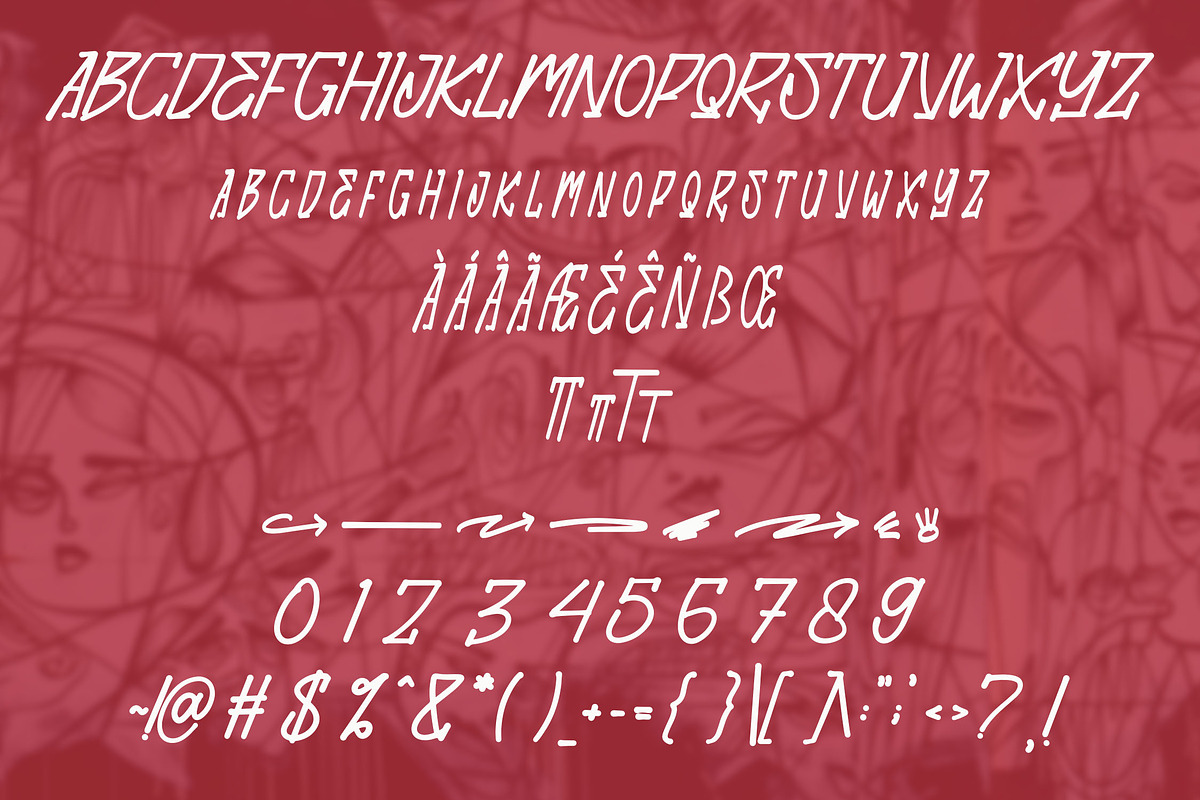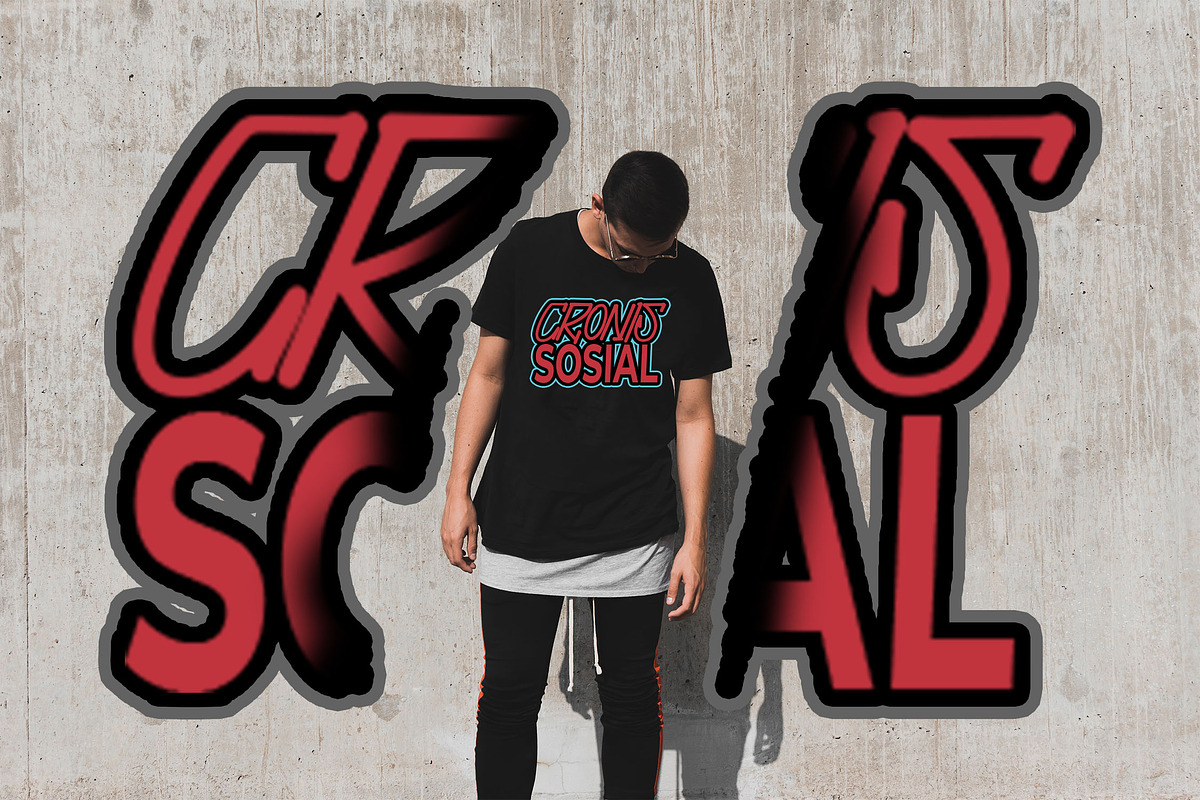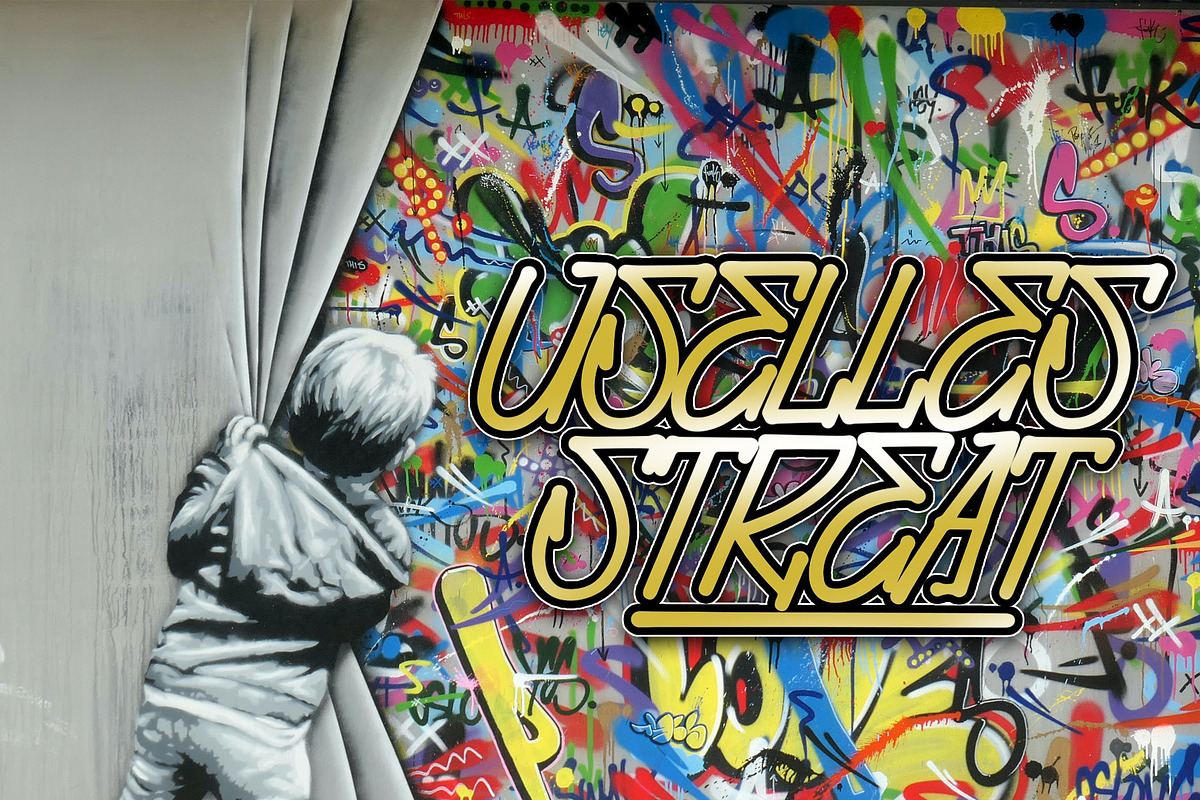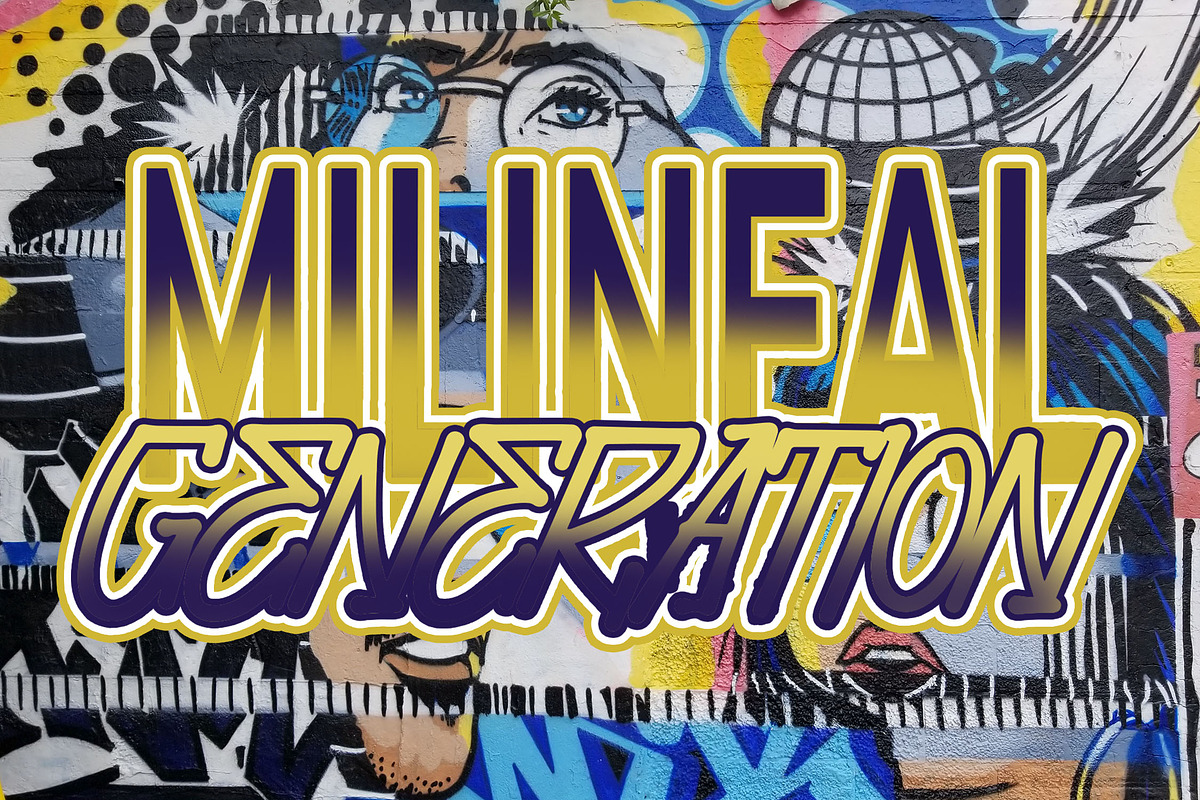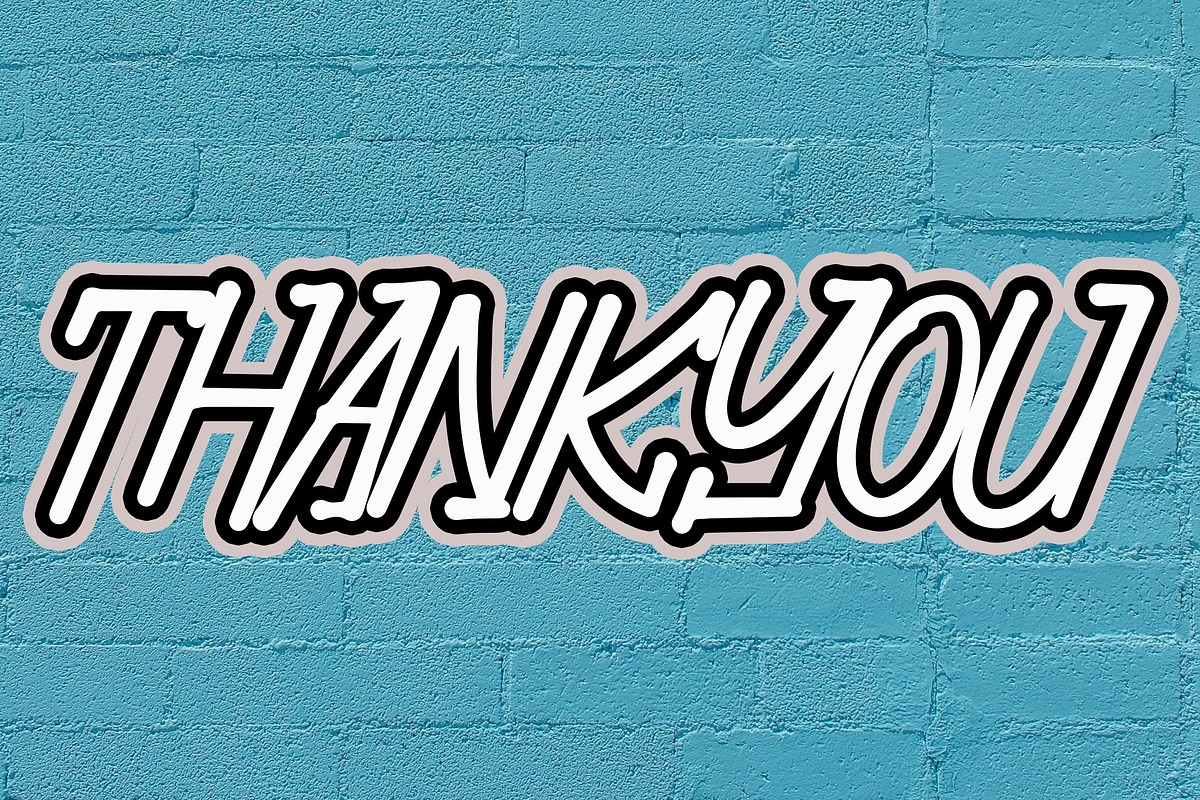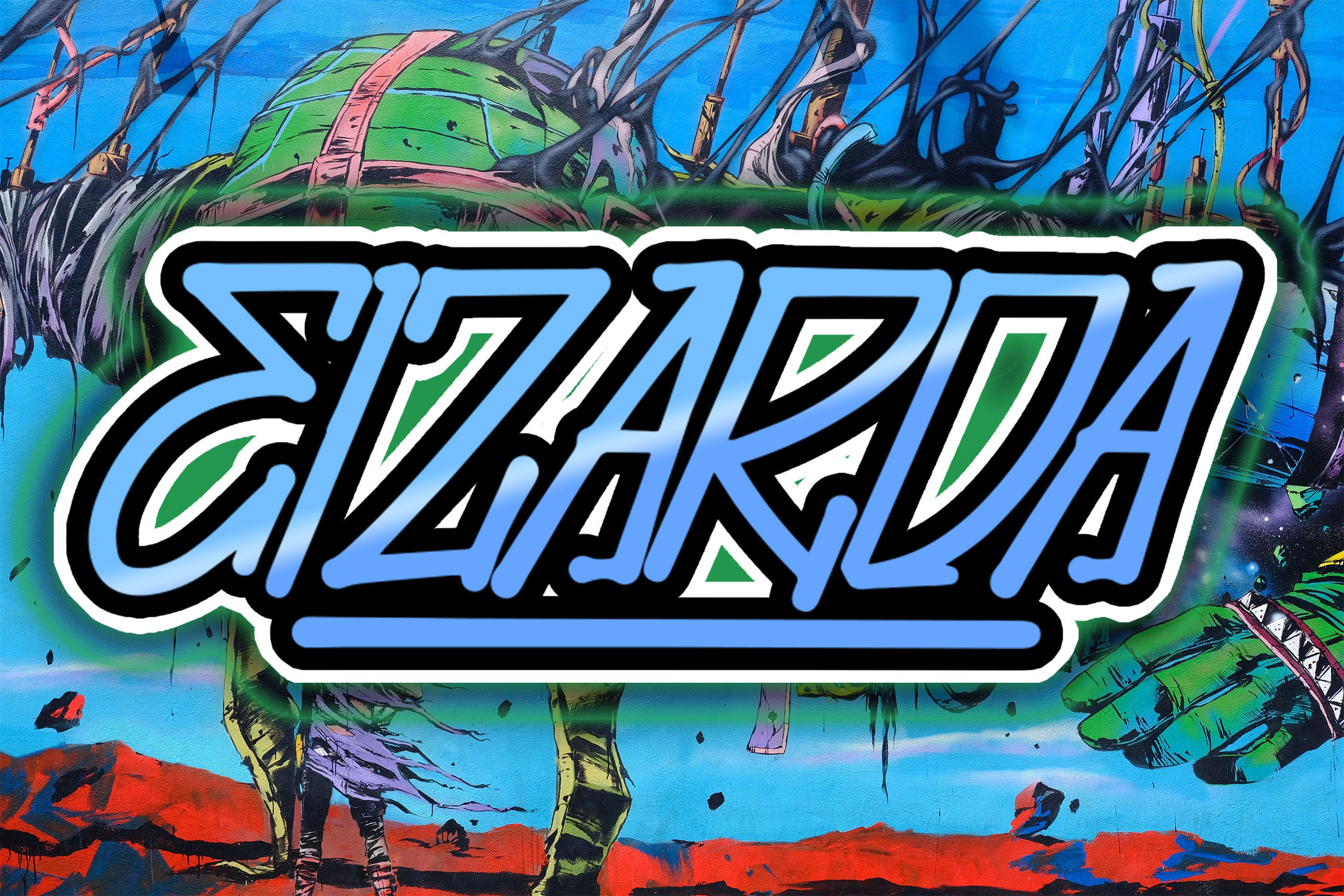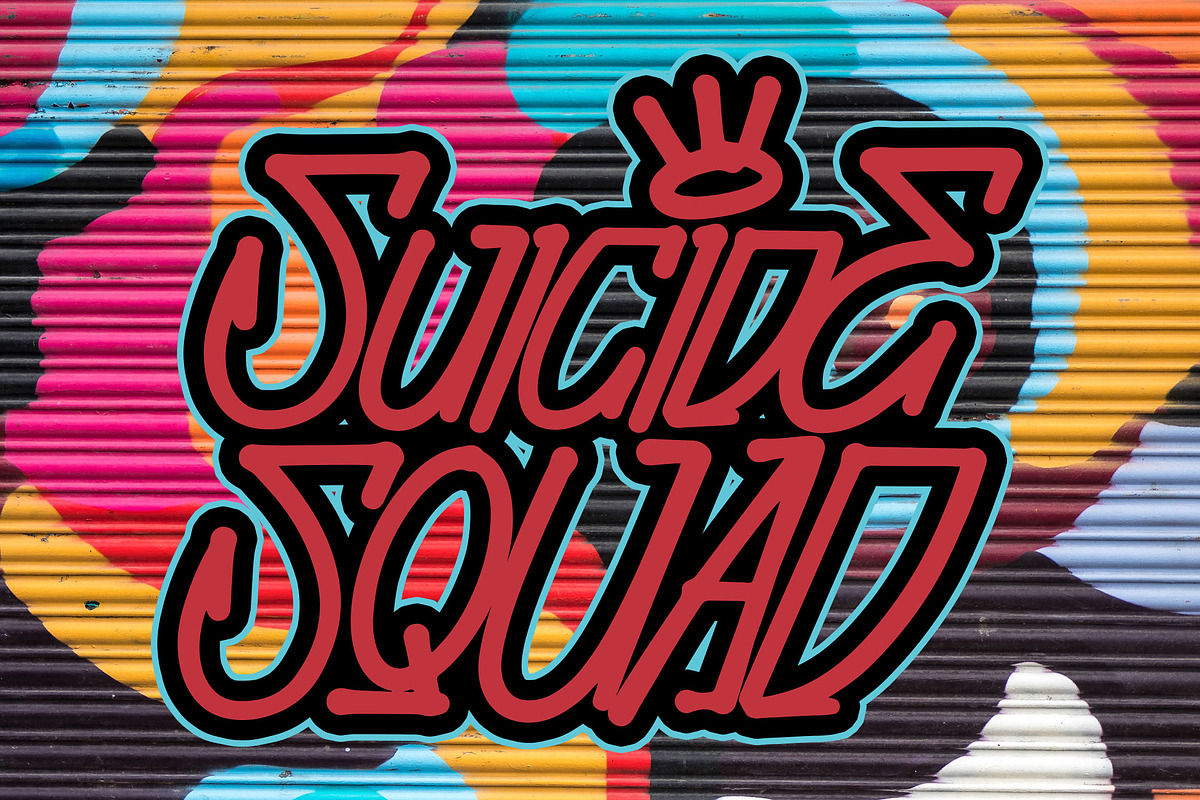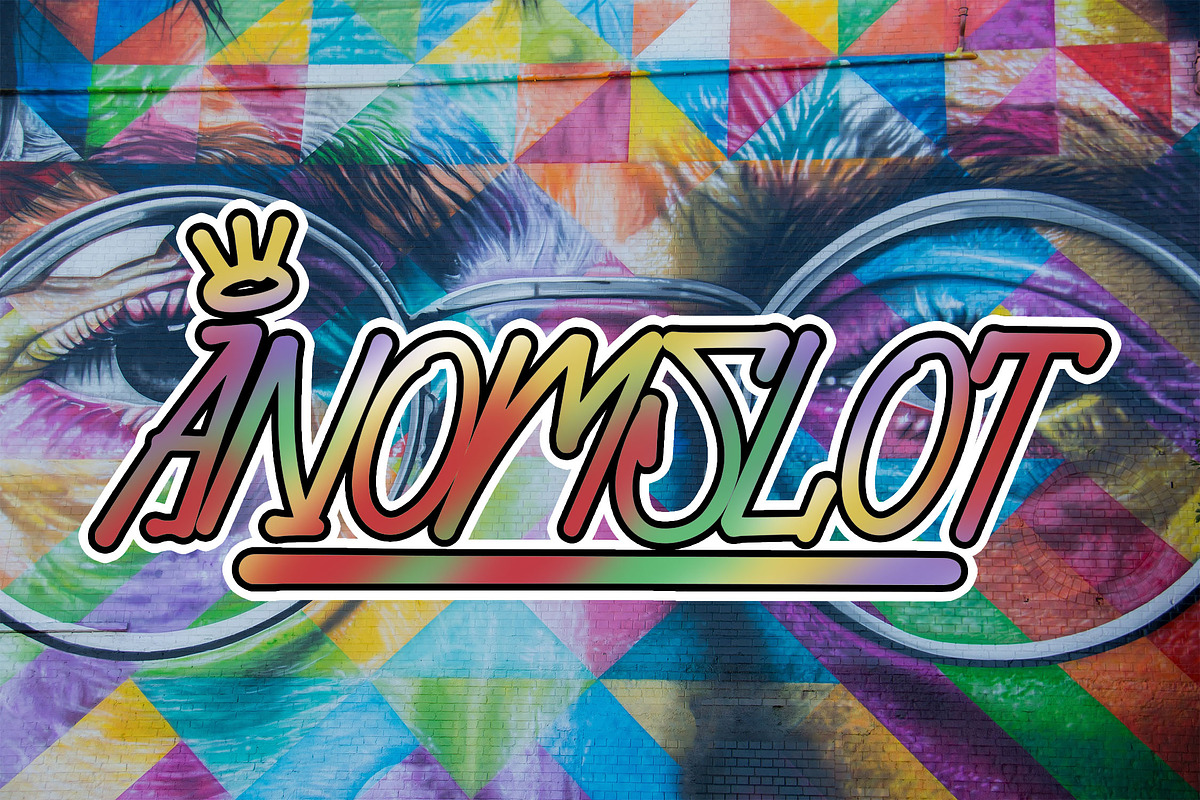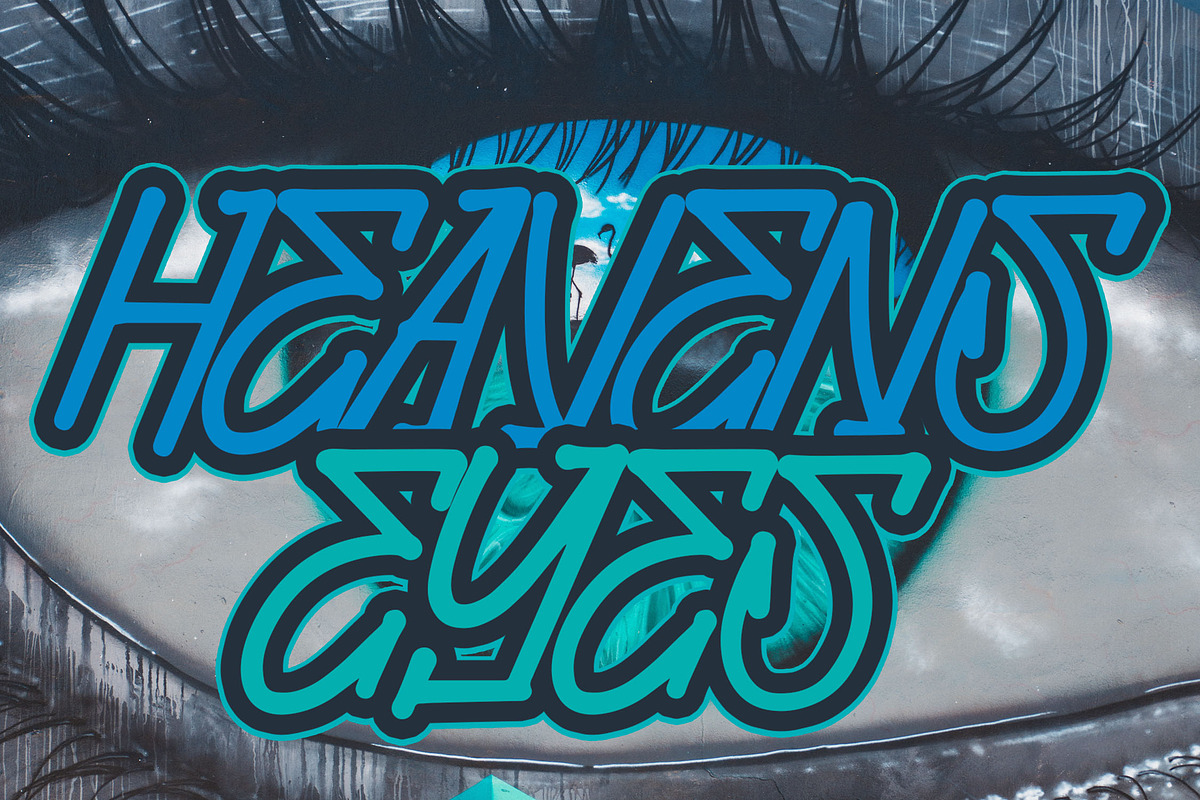
EIZARDA Bold Monoline Font
EIZARDA Bold Monoline Brush Font
EIZARDA is a bold monoline brush font crafted with unique character shapes. Its clean yet artistic style makes it perfect for enhancing the graphic appearance of your designs. Ideal for logos, branding, posters, and creative projects, EIZARDA adds a distinct and attractive touch to any product.